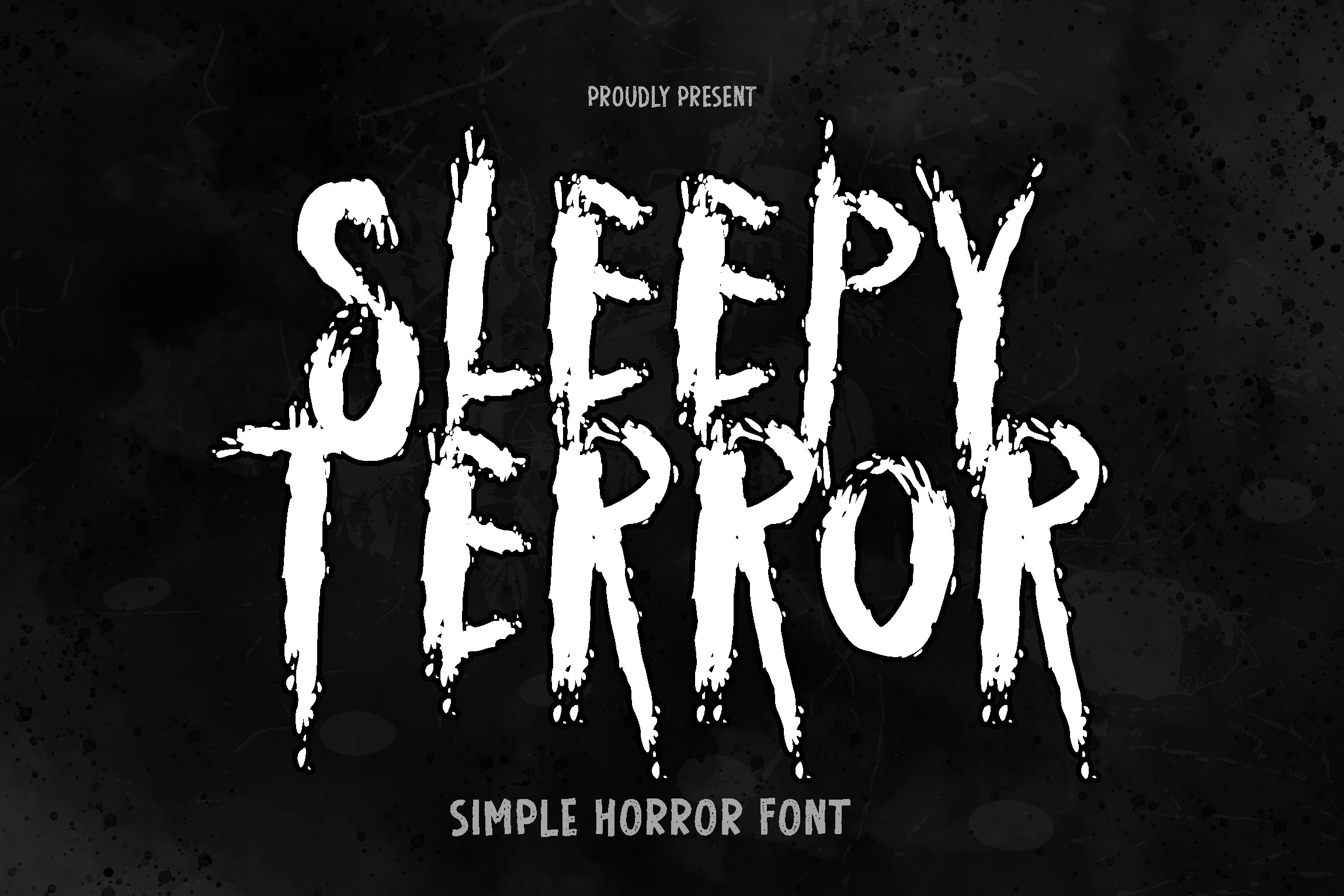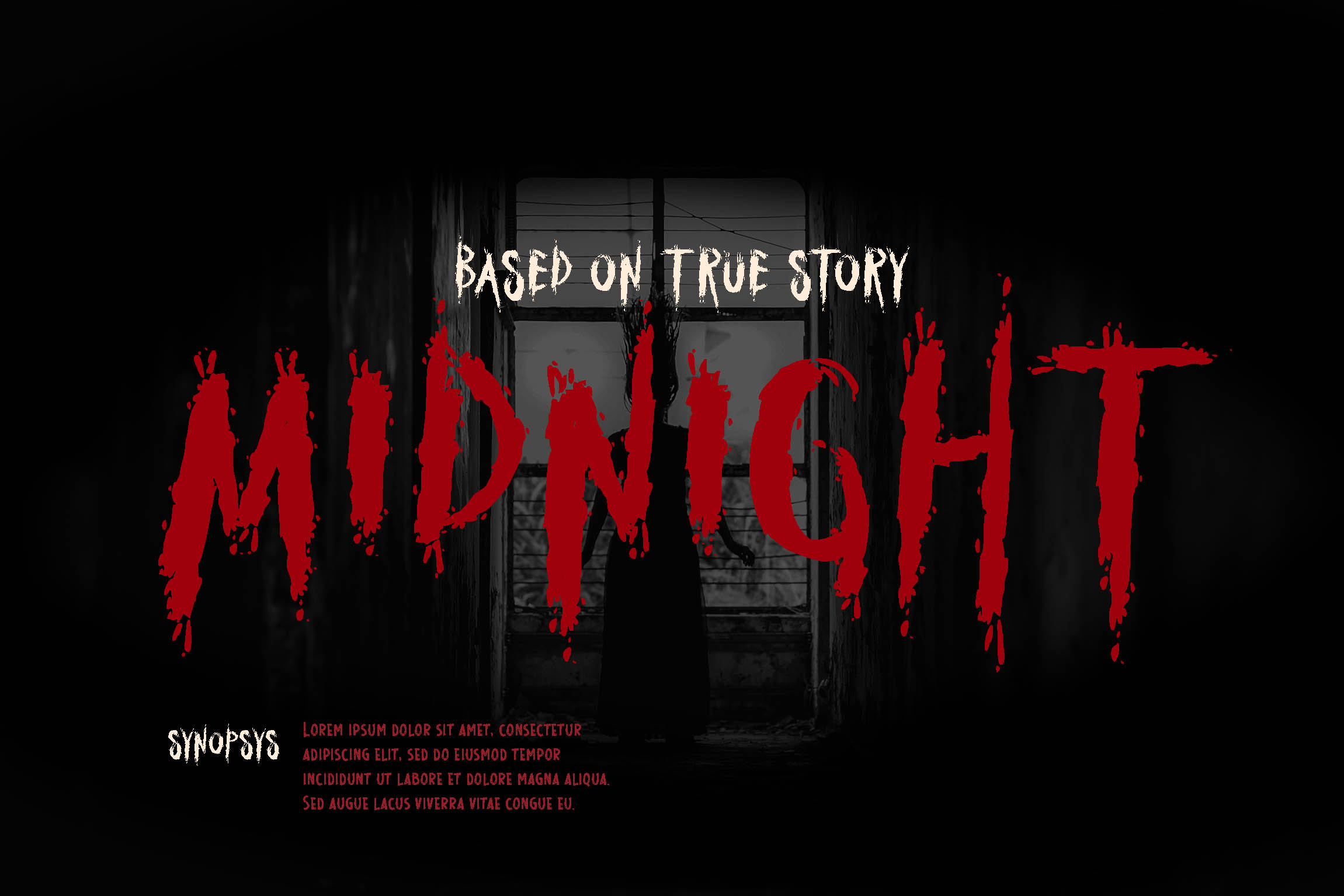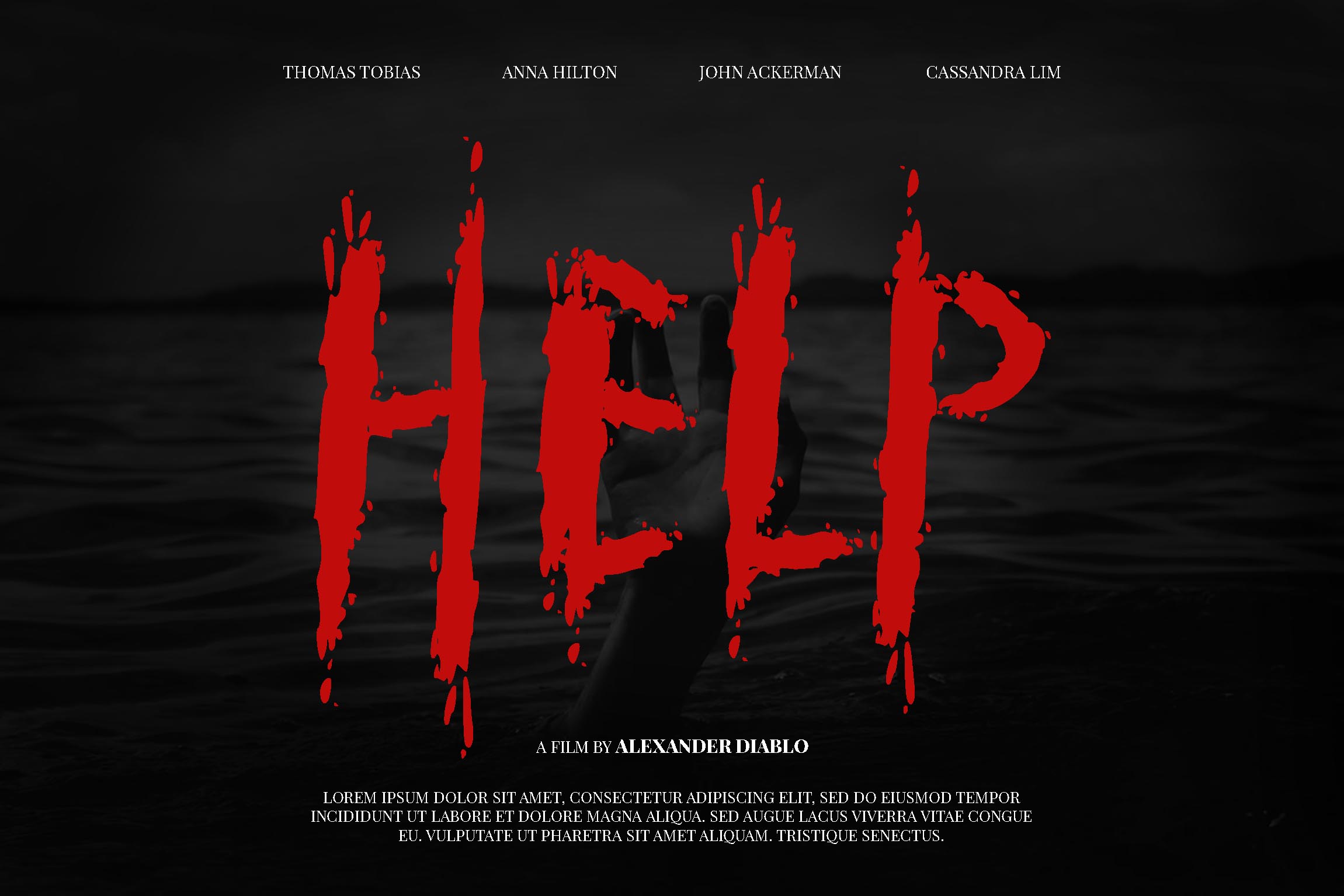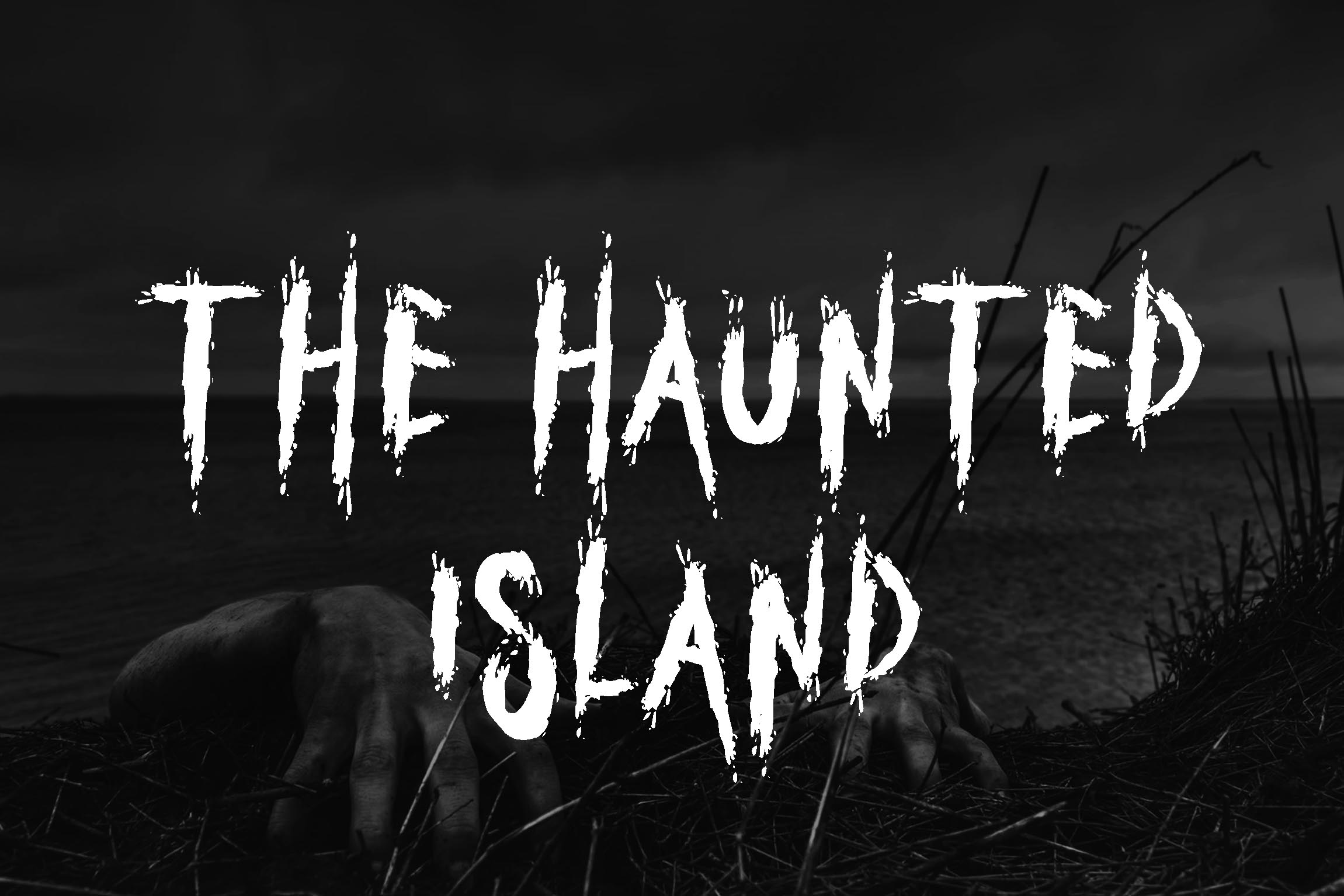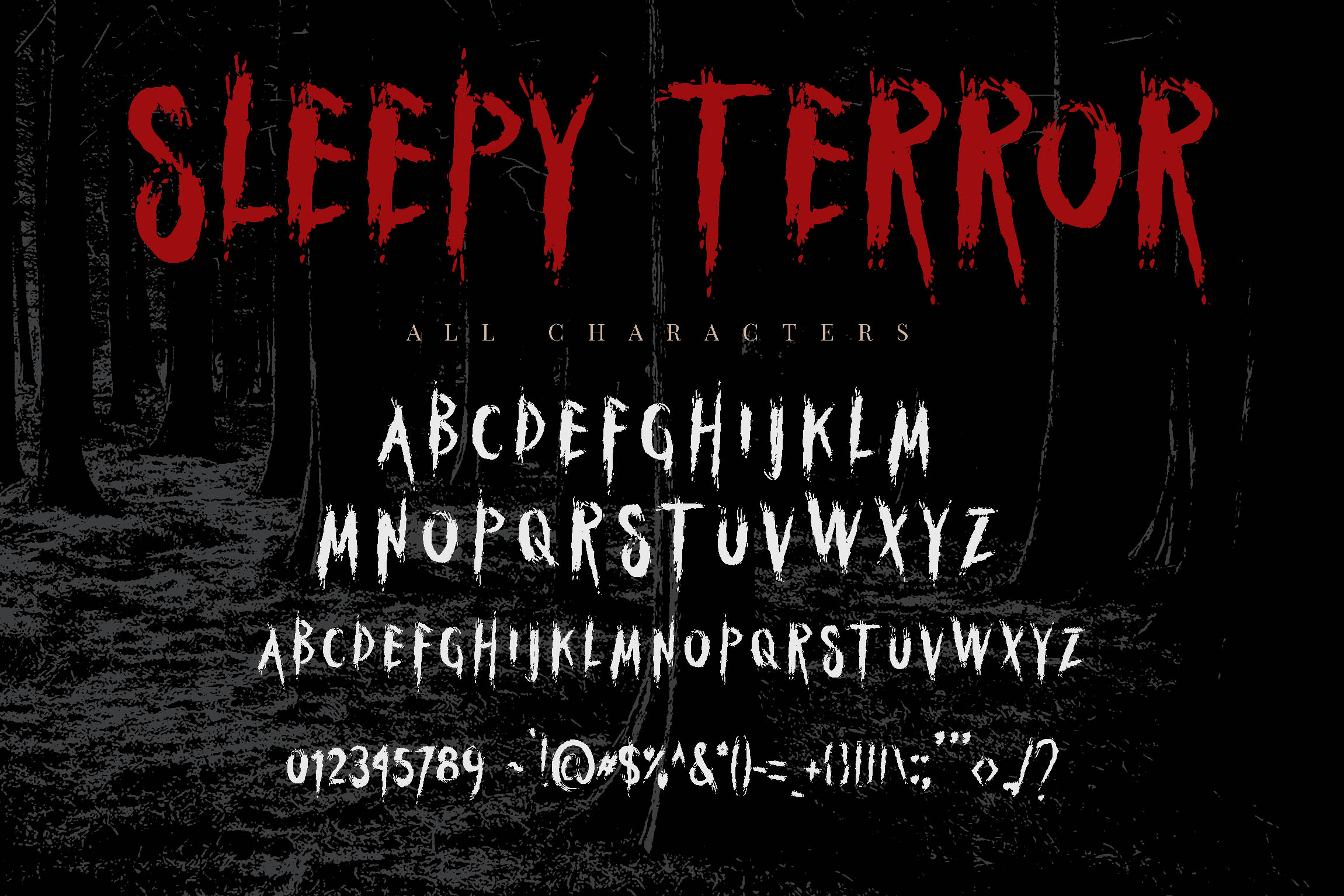
Sleepy Terror
Sleepy Terror is awesome horror font. Comes with Uppercase and lowercase characters, and Uppercase alternates. This font is great for any horror design purposes. Sleepy Terror is awesome for your logo, your band, for merchandise, for clothing, and movie title/poster